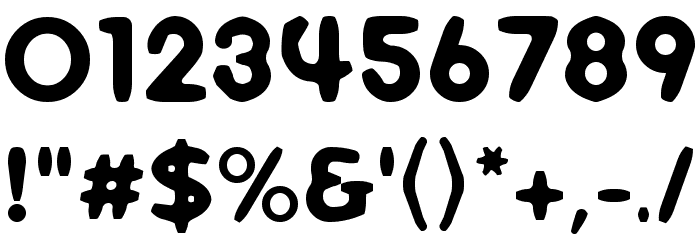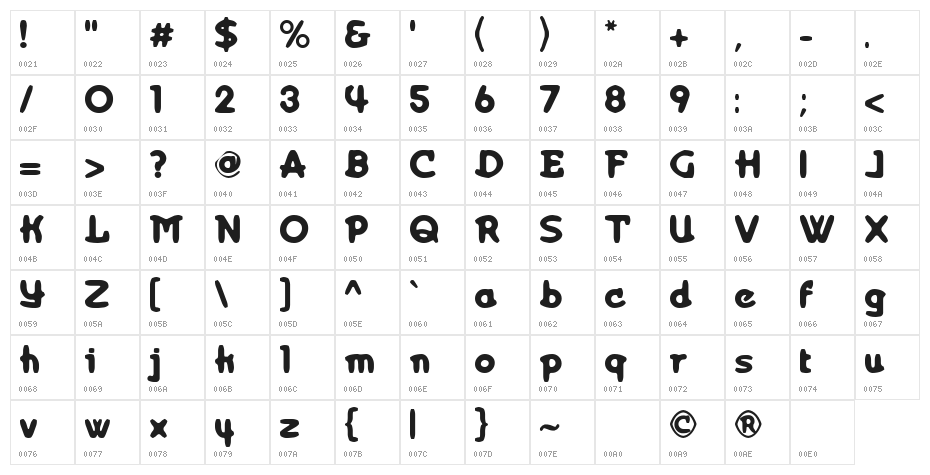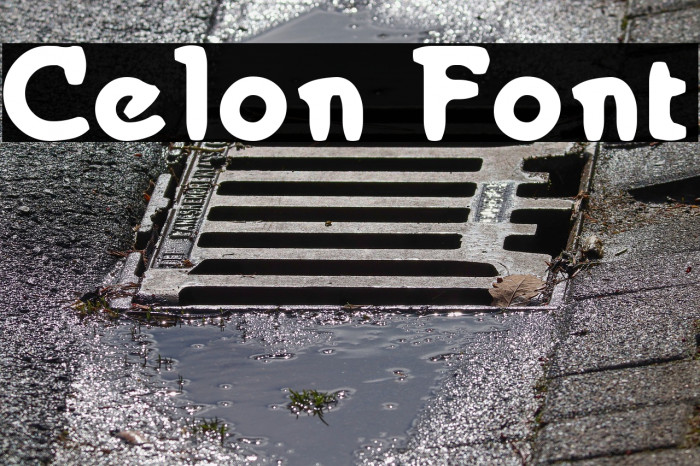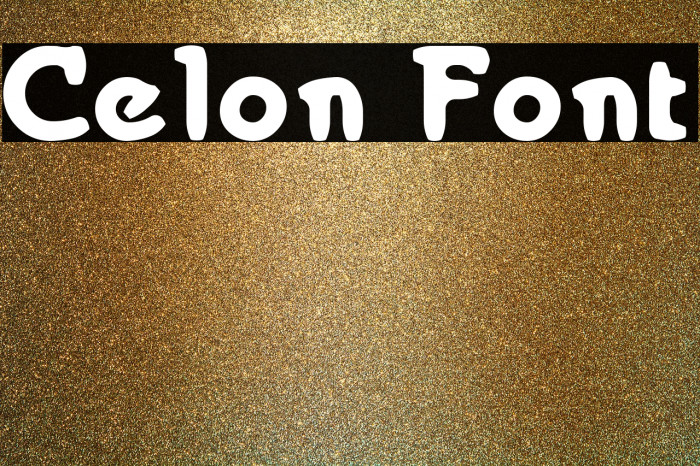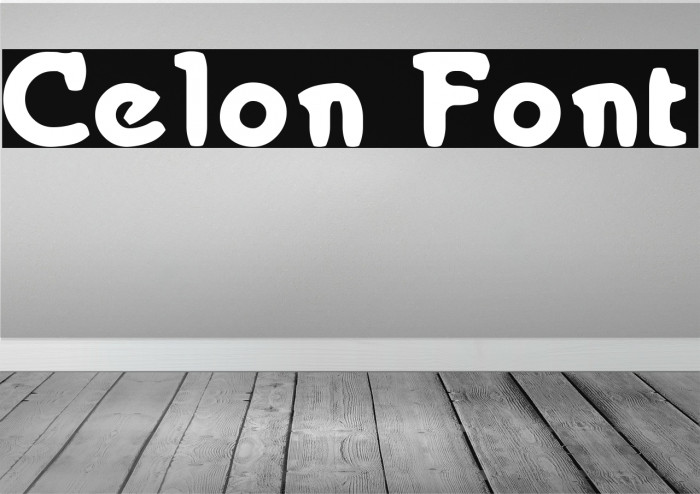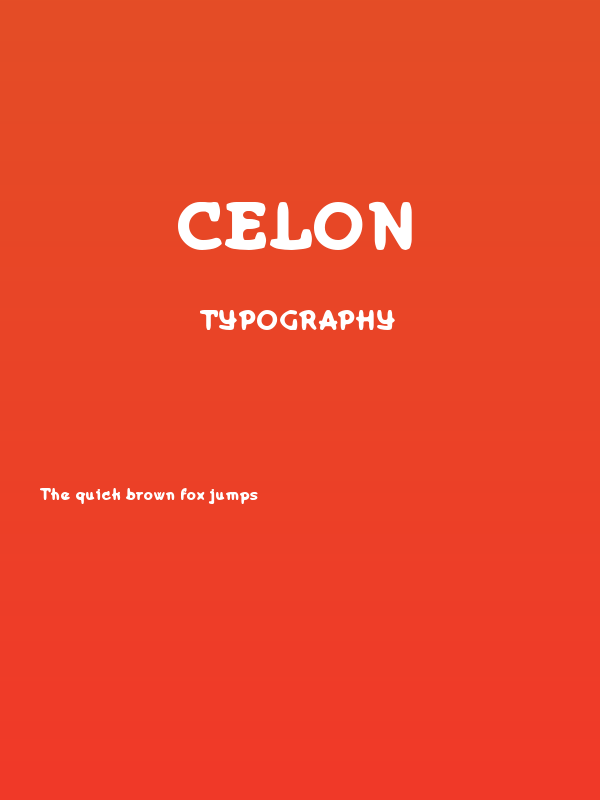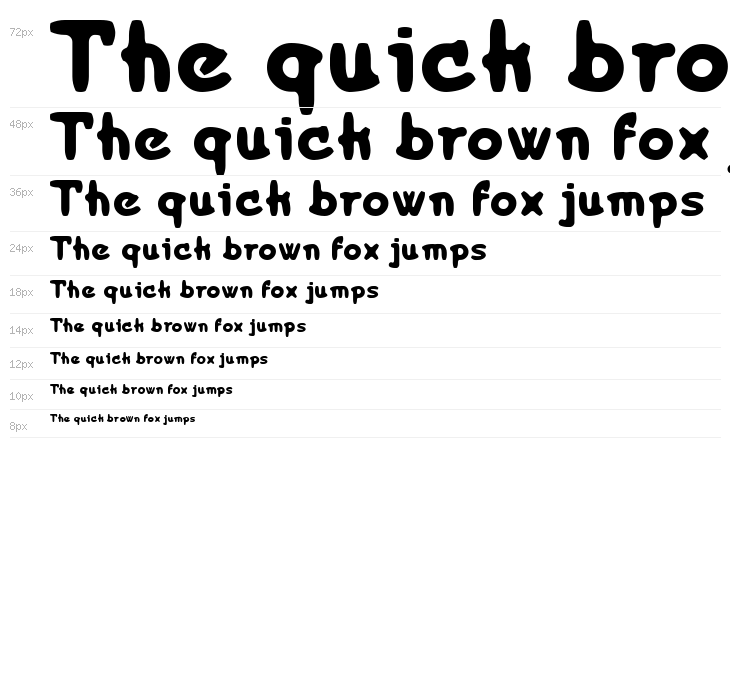
Celon Font
Celon Description
This font features a playful and bold design with rounded edges and a slightly irregular form, giving it a hand-drawn appearance. The characters are thick and substantial, providing a strong presence on the page. The uppercase and lowercase letters maintain a consistent style, with a whimsical touch that adds personality. The numerals and special characters follow the same playful design, making them easily recognizable. This font is ideal for projects that require a fun and approachable aesthetic, such as children's books, playful branding, or creative posters.